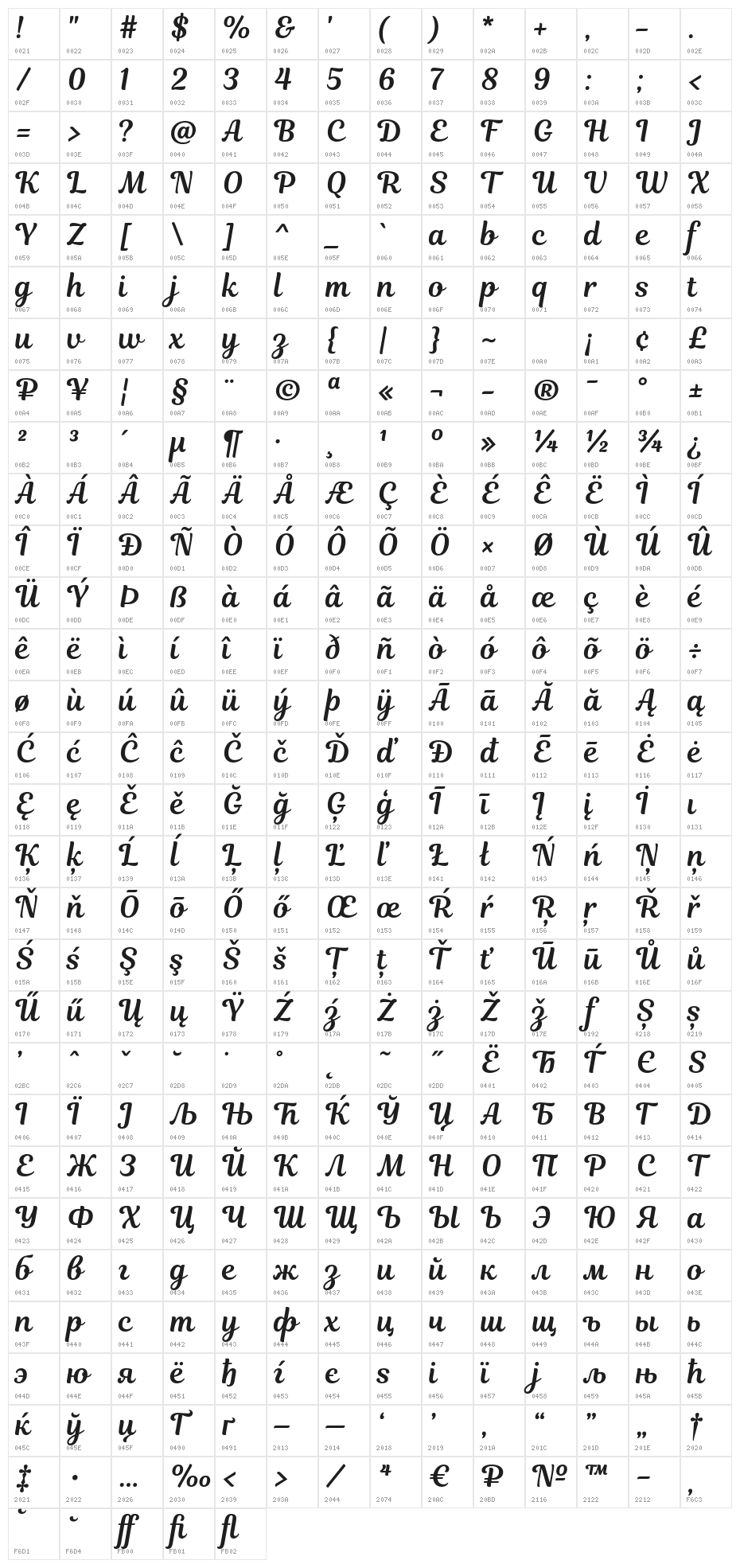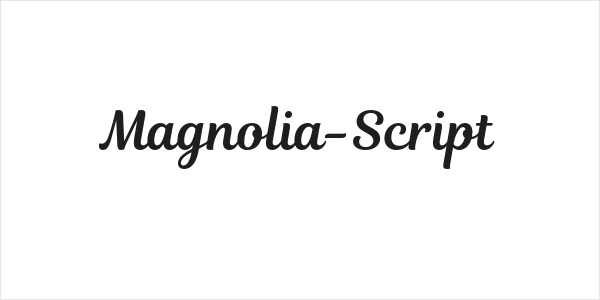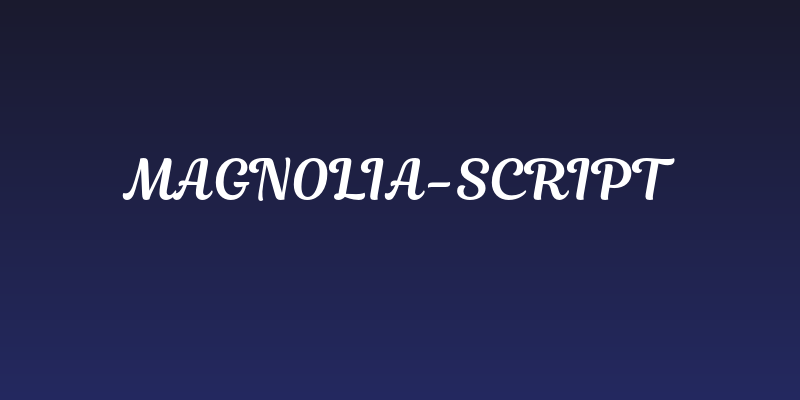
Magnolia-Script Font
| Общий стиль | Elegant, Sophisticated |
| Область применения | Invitations, Greeting cards, Branding |
| Рекомендуемые проекты | Ideal for wedding invitations, greeting cards, elegant branding, and personal stationery. |